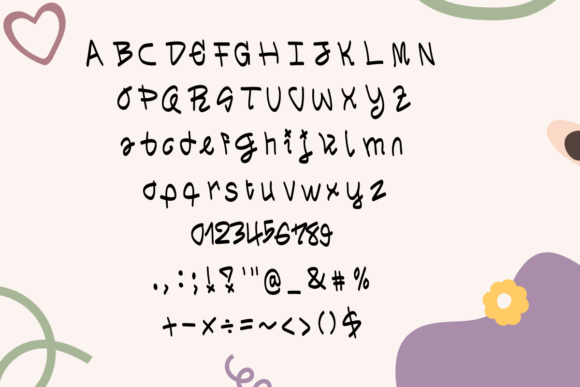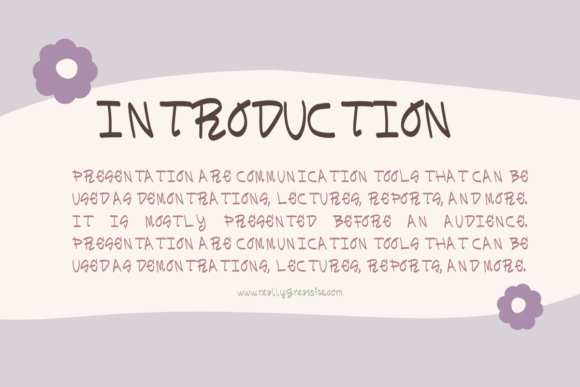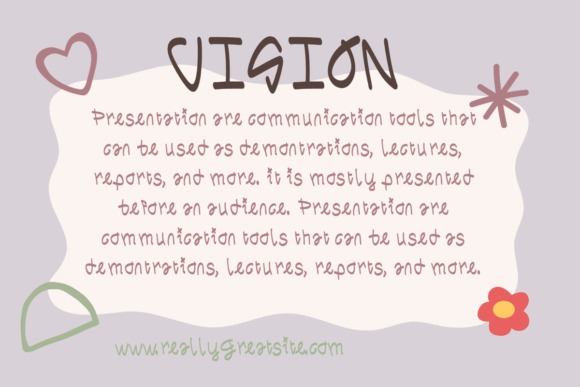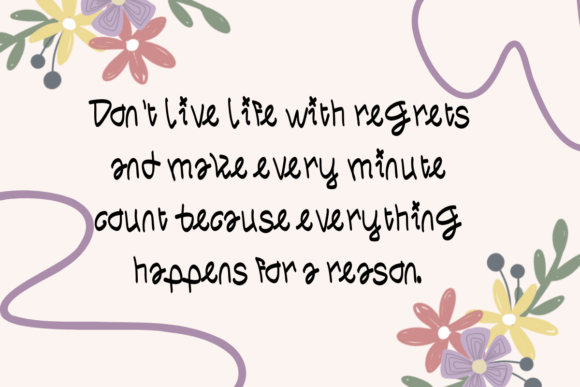
Introducing Drawing Font: The Quirky Handwritten Font for Creative Expression
Are you a designer, crafter, or simply someone who loves to express themselves through writing and art? Look no further than Drawing Font, a unique and quirky handwritten font that’s perfect for a variety of creative projects. In this article, we’ll explore the features and benefits of Drawing Font, and show you how to make the most of this versatile font in your designs.
What is Drawing Font?
Drawing Font is a one-of-a-kind handwritten font that’s designed to add a touch of personality to your writing and designs. With its playful and whimsical feel, this font is perfect for taking notes, writing a diary, or creating greeting cards. But its uses don’t stop there – Drawing Font can also be used for a wide range of design projects, from banners and content to mugs, cards, shirts, stationery, social media posts, and more!
Key Features of Drawing Font
- Handwritten style: Drawing Font has a unique, handwritten style that’s full of character and personality.
- Quirky and playful: This font is perfect for adding a touch of whimsy and fun to your designs.
- Versatile: Drawing Font can be used for a wide range of design projects, from personal to commercial.
- Easy to read: Despite its playful style, Drawing Font is still easy to read and understand.
Uses for Drawing Font
So, what can you use Drawing Font for? The possibilities are endless! Here are a few ideas to get you started:
- Note-taking: Use Drawing Font to add a personal touch to your notes and journals.
- Greeting cards: Create unique and personalized greeting cards for special occasions.
- Diary writing: Make your diary entries more fun and engaging with Drawing Font.
- Banners and signs: Use Drawing Font to create eye-catching banners and signs for events, promotions, or displays.
- Social media posts: Add a touch of personality to your social media posts and stories with Drawing Font.
- Mugs and ceramics: Create custom mugs, plates, and other ceramics with Drawing Font.
- T-shirts and apparel: Design unique and stylish t-shirts, hoodies, and other apparel with Drawing Font.
- Stationery and paper goods: Use Drawing Font to create custom stationery, notebooks, and paper goods.
Tips for Using Drawing Font
Here are a few tips for getting the most out of Drawing Font:
- Experiment with sizes and colors: Try out different font sizes and colors to add visual interest to your designs.
- Mix and match with other fonts: Combine Drawing Font with other fonts to create unique and interesting typography.
- Use it for headings and titles: Drawing Font is perfect for headings and titles, adding a touch of personality to your designs.
- Don’t be afraid to get creative: Drawing Font is all about self-expression, so don’t be afraid to try new things and push the boundaries of what’s possible.
Drawing Font is a unique and versatile handwritten font that’s perfect for designers, crafters, and anyone who loves to express themselves through writing and art. With its quirky and playful style, this font is sure to add a touch of personality to your designs. Whether you’re taking notes, creating greeting cards, or designing banners and signs, Drawing Font is the perfect choice. So why not give it a try and see what amazing creations you can come up with?